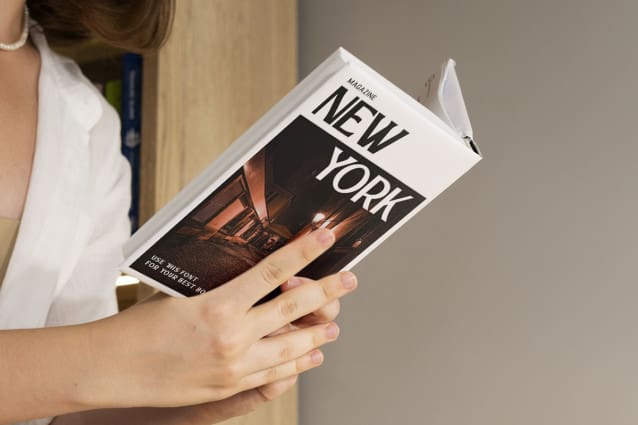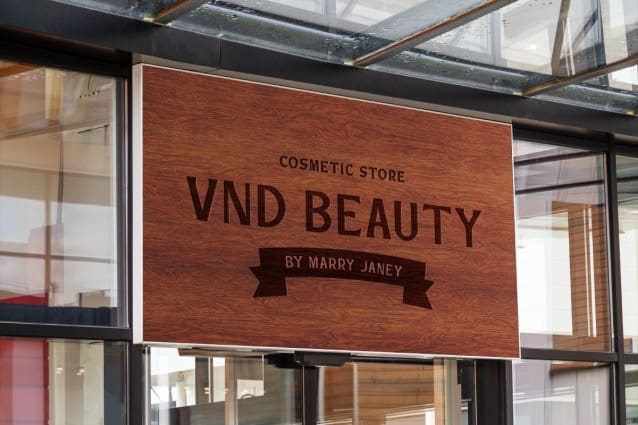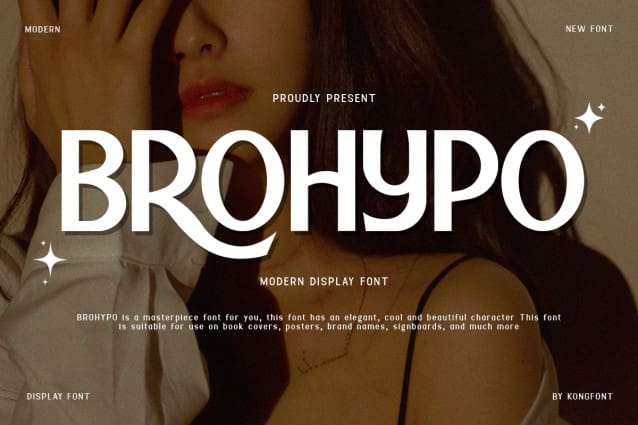
Brohypo Font
Brohypo Font – Modern Classy Unique Sans Serif Font is a new creation that comes with a great style and is made with the addition of a longer curvature variation than usual. This font is one of the fonts that give you options for people who are interested in using a sans serif font. The Brohypo Font – Modern Classy Unique Sans Serif Font has the characteristic that there is no exaggeration in each form of the letter. This font has a normal shape like the original letter. From the style, this font is legible. This font will be seen as clean when used with a large font size.
Brohypo Font – Modern Classy Unique Sans Serif Font certainly has high usability when used for branding a product. This font can be used for advertising posters, brand tags, and shop signs. This font can create a modern and simple impression of the product combined. This font can be used for magazine covers and book covers.